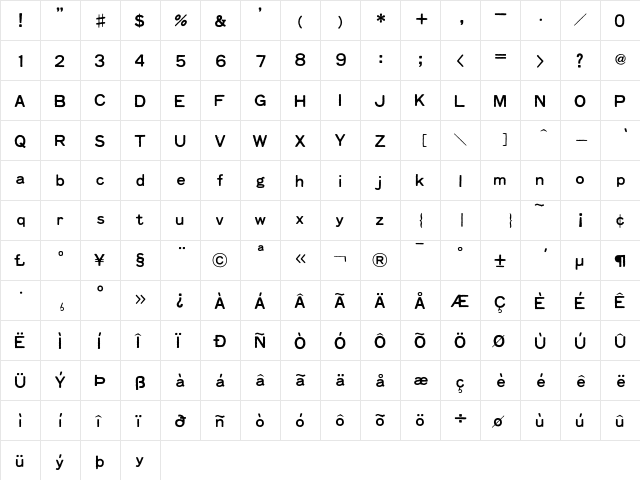
Faxfont Standard
Design Context for Faxfont Typeface
Faxfont is a composed and adaptable typeface that performs quietly and consistently across a wide range of design contexts.